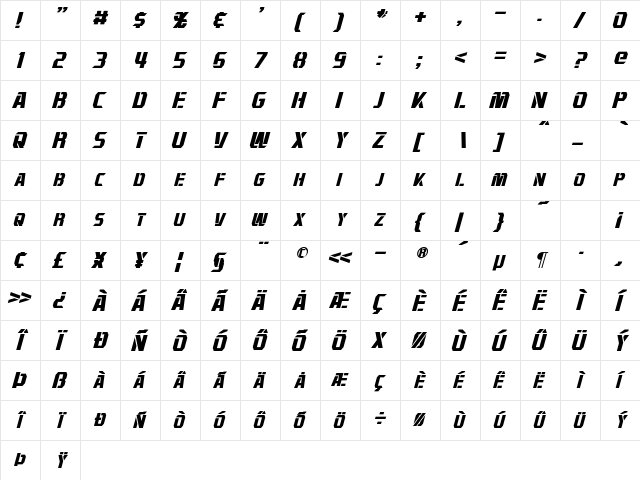
Combatron Italic
| Foundry | Neale Davidson |
| Designer | Neale Davidson |
Design Context for Combatron Typeface
Combatron draws on military and industrial lettering traditions, with forms that communicate strength and precision. The dynamic lean of this cut emphasises speed and emphasis in any layout.
A strong choice for security brands, outdoor gear, and high-stakes visual communication.
Pro Tip: Try Combatron in all-caps for the most authentic military signage feel. It pairs well with stark, minimal layouts and muted colour palettes.